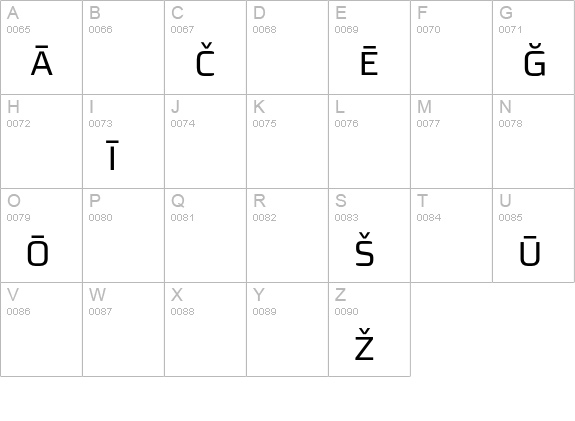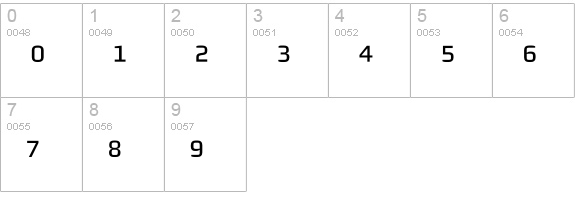
MorganSnPi Font Details
Introducing MorganSnPi font, a stylish and modern typeface perfect for a wide range of design projects. With its sleek lines and contemporary feel, MorganSnPi adds a touch of sophistication to any project. This versatile font is ideal for branding, logos, headlines, and more. Not only does MorganSnPi offer a sleek design, but it is also available for free! You can easily download this amazing font at FontsMarket.com. Don't miss out on the opportunity to enhance your designs with the elegance and style of MorganSnPi font. Download it today and elevate your projects to the next level.